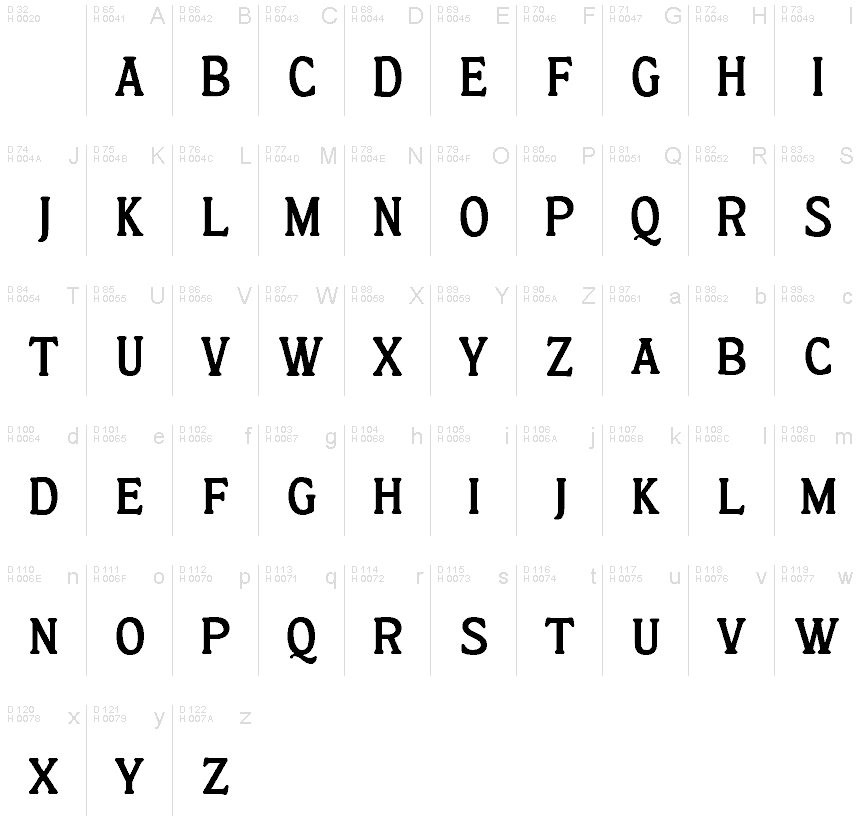
Burge Demo Regular
Burge font by Craft Supply Co. is an elegant serif that is authoritative but not at all heavy. Structured to perfection and sporting introverted elements of erosion, it joyfully sits somewhere in the middle; between modern styles, classical influences, and traditional shapes. This free font is proof that less is sometimes more with its clean cuts and subtle imaginative additions.